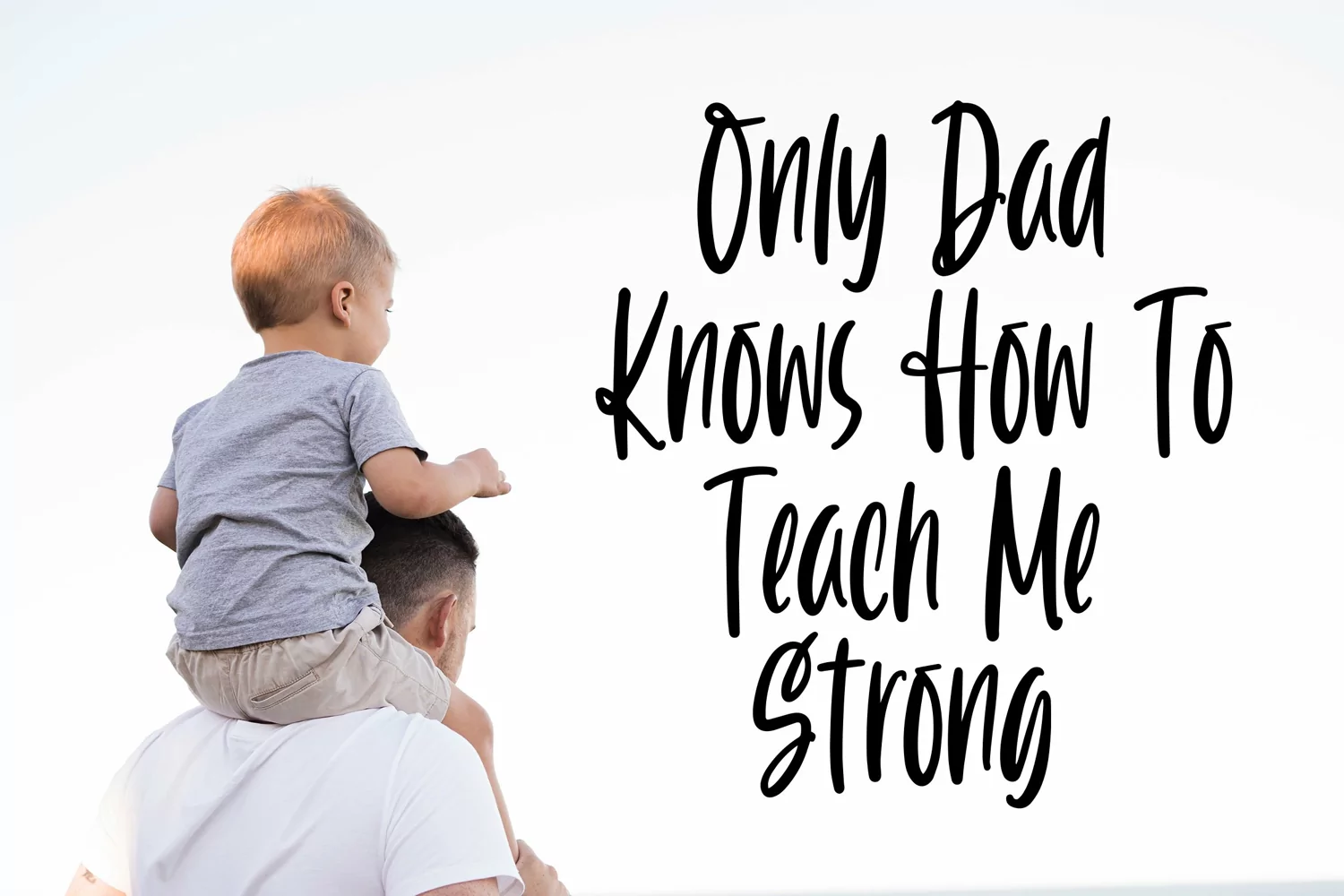
Early Morning - Fresh Morning Font that contain lowercase, uppercase, symbol, and also support multi language. There’s a lot ligatures in this font. This Font also comes with ligatures, alternates and many more. this font suitable for fashion, branding, catalog and other design what you want.